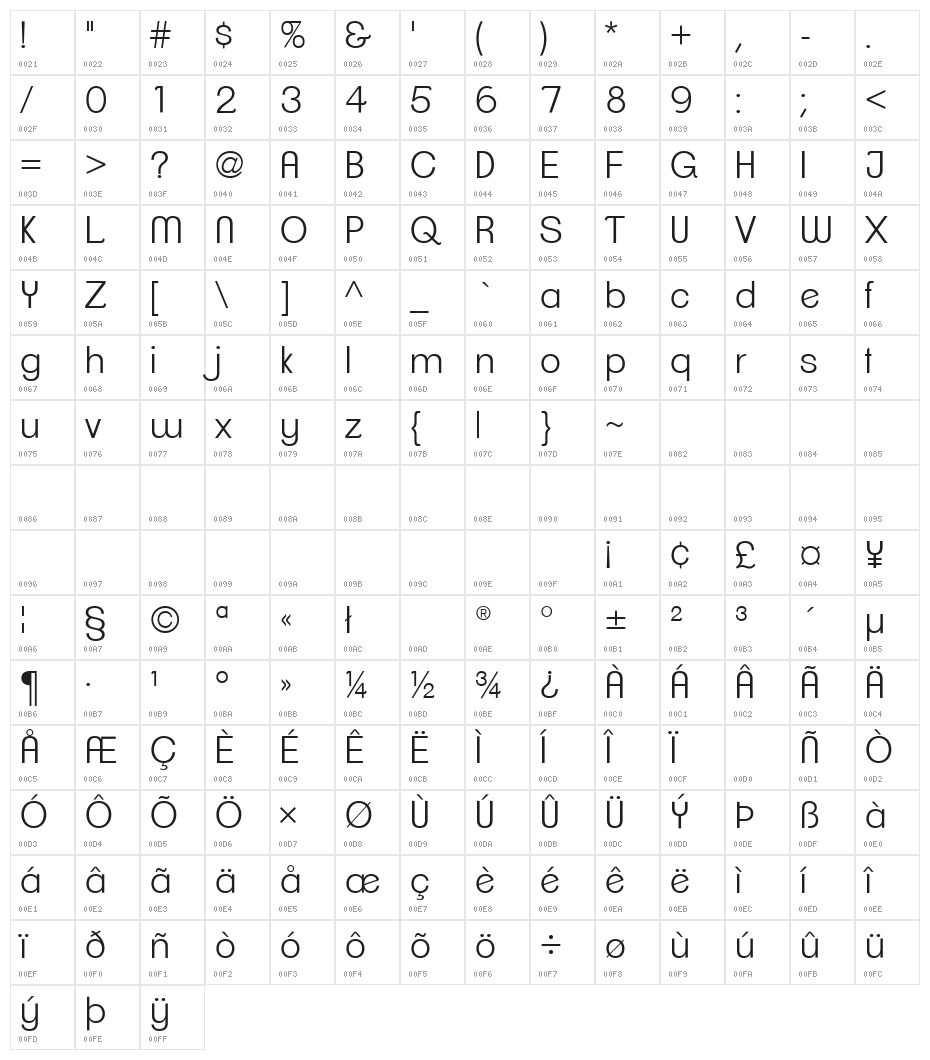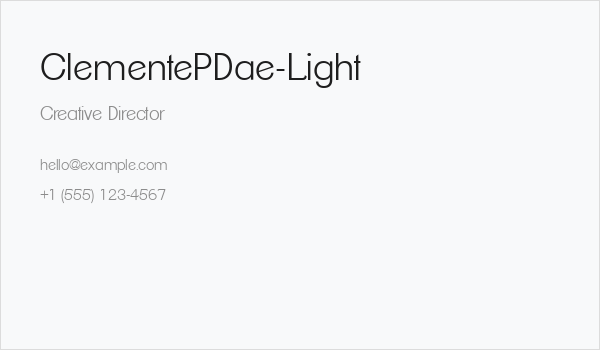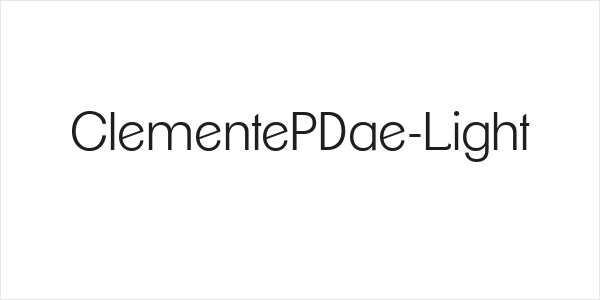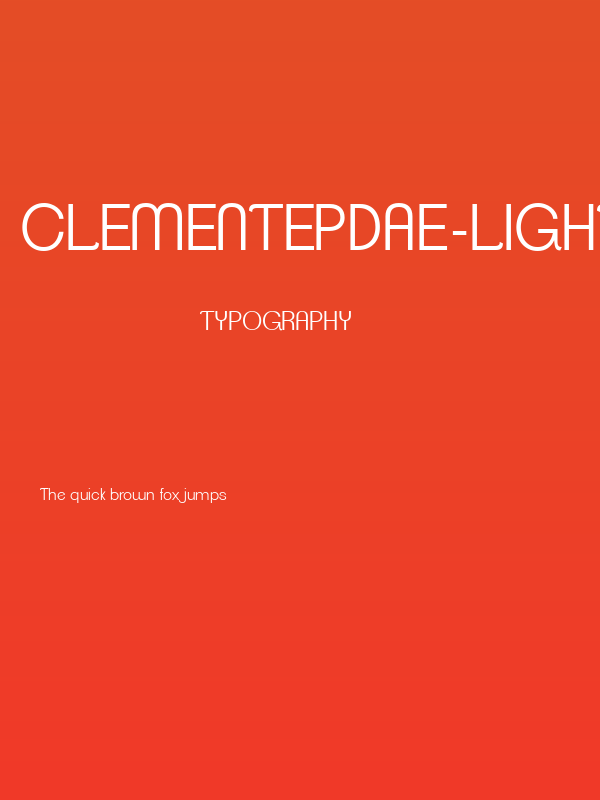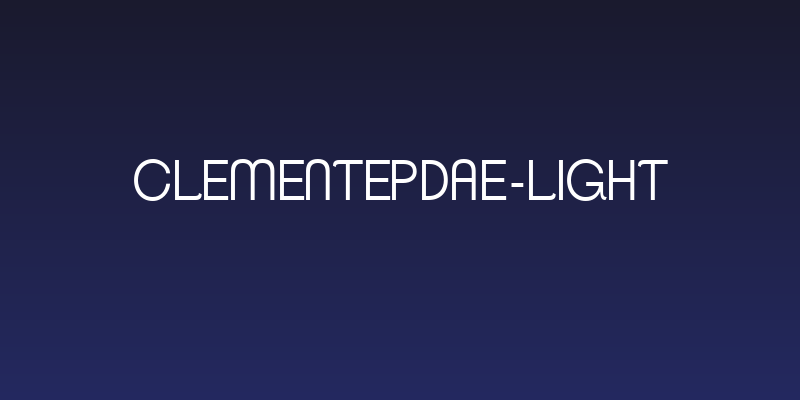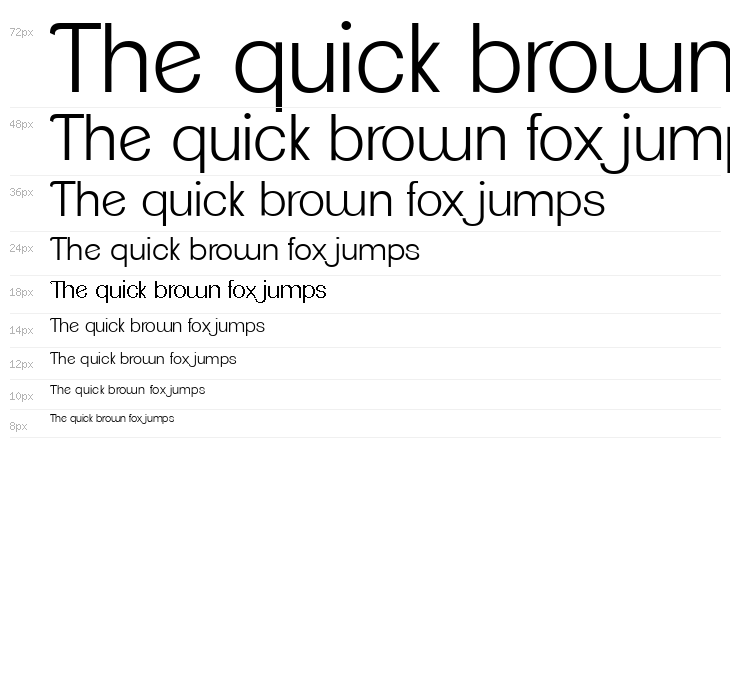
ClementePDae-Light Font
ClementePDae-Light Description
This font features a clean and modern sans-serif design with smooth curves and a consistent stroke width. The characters are well-proportioned, offering a harmonious and balanced appearance. The uppercase letters are bold and assertive, while the lowercase letters maintain a friendly and approachable feel. The numerals are clear and easy to read, making them suitable for various applications. Special characters are designed with the same attention to detail, ensuring a cohesive look across all glyphs. The overall style is minimalist, making it versatile for both digital and print media.